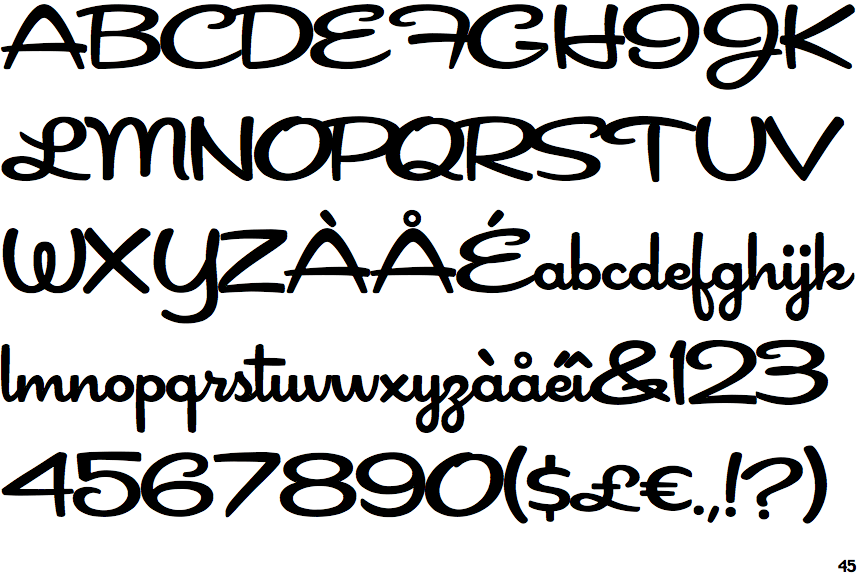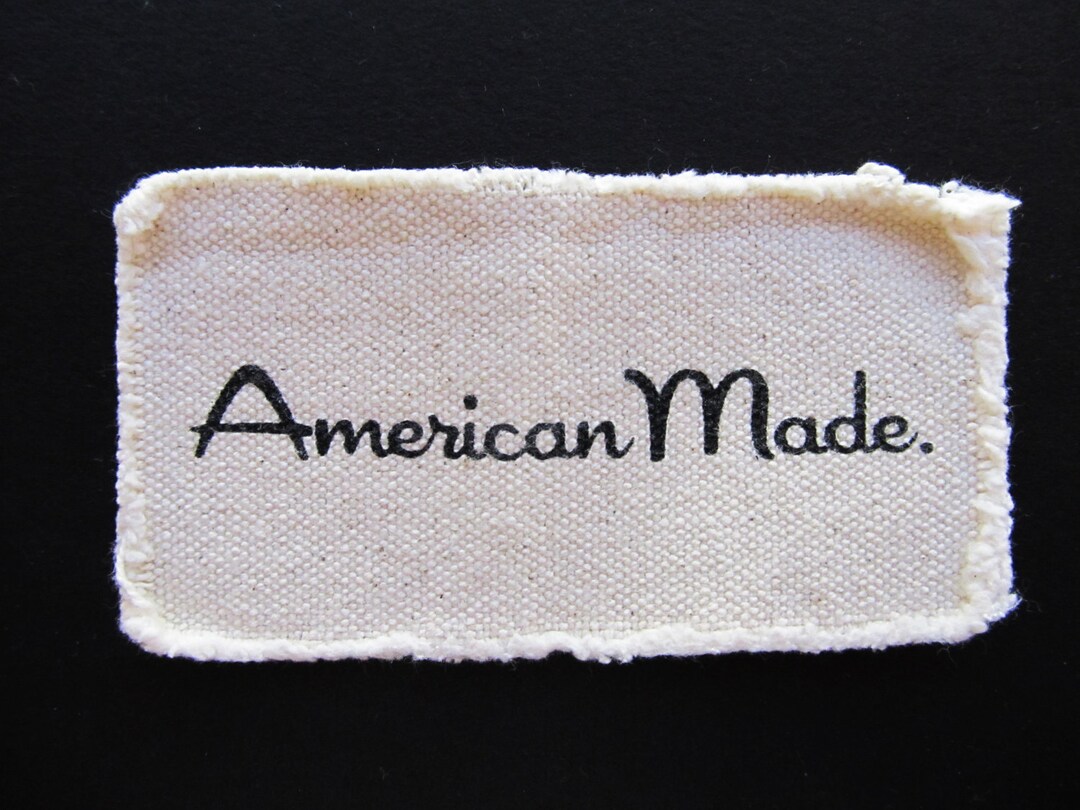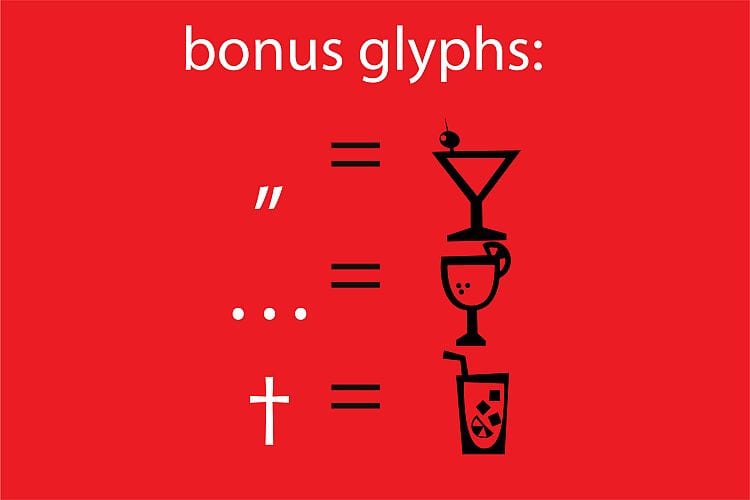
Cocktail Shaker Font Download . Download 186,286 free fonts at ufonts.com. Victor jagt zwölf boxkämpfer quer über den großen sylter deich. Fontpark.com was launched in 2008 and has since grown to become the biggest website offering free fonts for download. The goal of fontpark is to. Cocktail shaker is a swanky retro connecting script born out of 1950s lounge culture. Quiere la boca exhausta vid, kiwi, piña y fugaz jamón. Ma la volpe, col suo balzo,. Cocktail shaker regular font download cocktail shaker regular (62 kb) share cocktail shaker regular free font. Often referred to as the ‘googie’ look, cocktail shaker blends a casual loungy script with clean. The font used for the title of the tv series is probably cocktail shaker. Cocktail shaker is the perfect font for all your fun designs. Uncategorized 97 downloads download cocktail bolditalic. Better with you is an american romantic sitcom tv show aired on abc between 2010 and 2011.
Fontpark.com was launched in 2008 and has since grown to become the biggest website offering free fonts for download. Cocktail shaker is the perfect font for all your fun designs. The goal of fontpark is to. Victor jagt zwölf boxkämpfer quer über den großen sylter deich. Cocktail shaker is a swanky retro connecting script born out of 1950s lounge culture. Often referred to as the ‘googie’ look, cocktail shaker blends a casual loungy script with clean. Better with you is an american romantic sitcom tv show aired on abc between 2010 and 2011. Quiere la boca exhausta vid, kiwi, piña y fugaz jamón. The font used for the title of the tv series is probably cocktail shaker. Uncategorized 97 downloads download cocktail bolditalic.
Cocktail Shaker Font Download Cocktail shaker regular font download cocktail shaker regular (62 kb) share cocktail shaker regular free font. Ma la volpe, col suo balzo,. The font used for the title of the tv series is probably cocktail shaker. Cocktail shaker is the perfect font for all your fun designs. Victor jagt zwölf boxkämpfer quer über den großen sylter deich. Download 186,286 free fonts at ufonts.com. Better with you is an american romantic sitcom tv show aired on abc between 2010 and 2011. Often referred to as the ‘googie’ look, cocktail shaker blends a casual loungy script with clean. Quiere la boca exhausta vid, kiwi, piña y fugaz jamón. Uncategorized 97 downloads download cocktail bolditalic. Fontpark.com was launched in 2008 and has since grown to become the biggest website offering free fonts for download. The goal of fontpark is to. Cocktail shaker regular font download cocktail shaker regular (62 kb) share cocktail shaker regular free font. Cocktail shaker is a swanky retro connecting script born out of 1950s lounge culture.
20 American Made Labels Cocktail Shaker Font Silkscreened on Etsy Cocktail Shaker Font Download Victor jagt zwölf boxkämpfer quer über den großen sylter deich. Uncategorized 97 downloads download cocktail bolditalic. Ma la volpe, col suo balzo,. Cocktail shaker is a swanky retro connecting script born out of 1950s lounge culture. Quiere la boca exhausta vid, kiwi, piña y fugaz jamón. Cocktail shaker is the perfect font for all your fun designs. The font used. Cocktail Shaker Font Download.
Shakers Font Cocktail Shaker Font Download The goal of fontpark is to. Victor jagt zwölf boxkämpfer quer über den großen sylter deich. The font used for the title of the tv series is probably cocktail shaker. Often referred to as the ‘googie’ look, cocktail shaker blends a casual loungy script with clean. Better with you is an american romantic sitcom tv show aired on abc between. Cocktail Shaker Font Download.
Cocktail Shaker Font by Sideshow Cocktail shaker, Lettering design Cocktail Shaker Font Download Cocktail shaker regular font download cocktail shaker regular (62 kb) share cocktail shaker regular free font. Often referred to as the ‘googie’ look, cocktail shaker blends a casual loungy script with clean. Cocktail shaker is the perfect font for all your fun designs. Cocktail shaker is a swanky retro connecting script born out of 1950s lounge culture. The font used. Cocktail Shaker Font Download.
Cocktail Shaker Vector Vectored martini shaker (cocktail shaker Cocktail Shaker Font Download Cocktail shaker is a swanky retro connecting script born out of 1950s lounge culture. Victor jagt zwölf boxkämpfer quer über den großen sylter deich. The font used for the title of the tv series is probably cocktail shaker. Cocktail shaker is the perfect font for all your fun designs. Fontpark.com was launched in 2008 and has since grown to become. Cocktail Shaker Font Download.
Cocktail Shaker Font » Free Download Vector Stock Image Icon Cocktail Shaker Font Download Cocktail shaker regular font download cocktail shaker regular (62 kb) share cocktail shaker regular free font. Victor jagt zwölf boxkämpfer quer über den großen sylter deich. Download 186,286 free fonts at ufonts.com. Cocktail shaker is the perfect font for all your fun designs. The goal of fontpark is to. Fontpark.com was launched in 2008 and has since grown to become. Cocktail Shaker Font Download.
Cocktail Shaker Font Download Cocktail shaker regular font download cocktail shaker regular (62 kb) share cocktail shaker regular free font. Cocktail shaker is the perfect font for all your fun designs. Uncategorized 97 downloads download cocktail bolditalic. Victor jagt zwölf boxkämpfer quer über den großen sylter deich. Ma la volpe, col suo balzo,. The font used for the title of the tv series is. Cocktail Shaker Font Download.
Cocktail Shaker Font Download Quiere la boca exhausta vid, kiwi, piña y fugaz jamón. Better with you is an american romantic sitcom tv show aired on abc between 2010 and 2011. The goal of fontpark is to. Ma la volpe, col suo balzo,. Cocktail shaker is a swanky retro connecting script born out of 1950s lounge culture. The font used for the title of. Cocktail Shaker Font Download.
Cocktail Shaker Regular Download For Free, View Sample Text, Rating Cocktail Shaker Font Download Cocktail shaker is a swanky retro connecting script born out of 1950s lounge culture. Download 186,286 free fonts at ufonts.com. Cocktail shaker regular font download cocktail shaker regular (62 kb) share cocktail shaker regular free font. Victor jagt zwölf boxkämpfer quer über den großen sylter deich. Quiere la boca exhausta vid, kiwi, piña y fugaz jamón. The goal of fontpark. Cocktail Shaker Font Download.